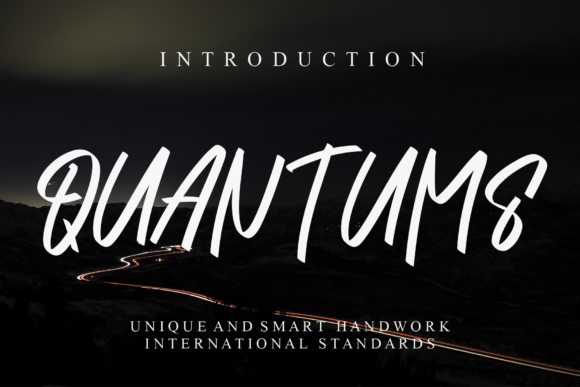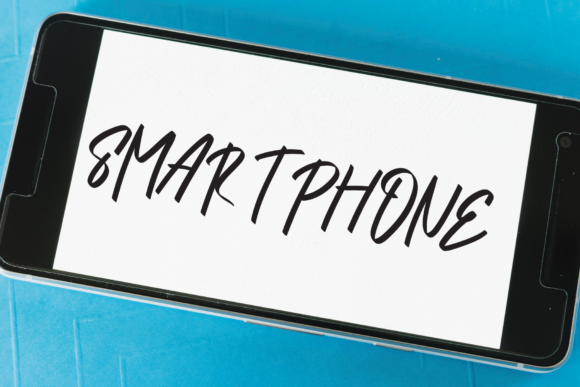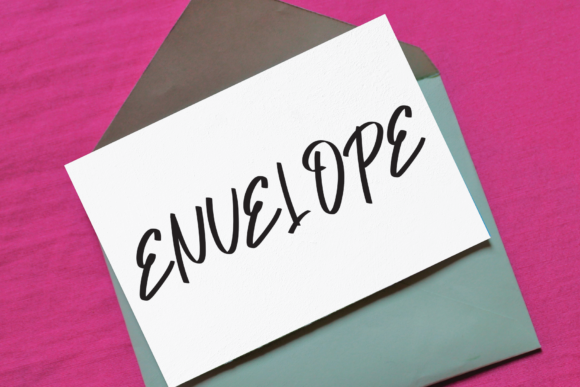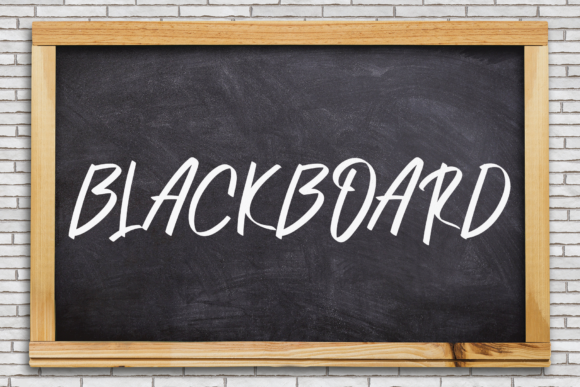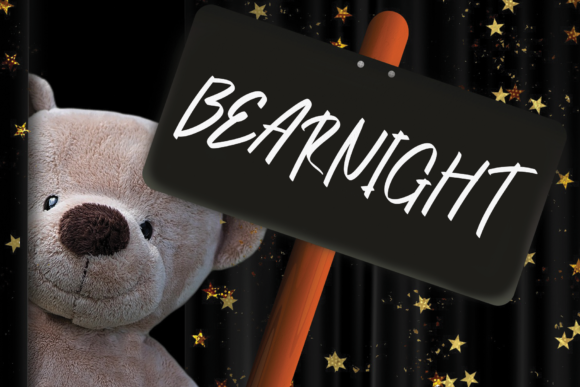
Quantums Font
About Quantums Font
Quantums is a quirky and friendly handwritten font. Use this font for with your designs and explore its endless possibilities.